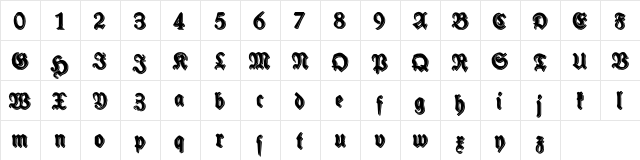
Schneidler Halb Fette Shadow Regular
Design Context for Schneidler Halb Fette Shadow Typeface
Schneidler Halb Fette Shadow brings ornamental detail and strong personality to headlines and identities, where visual impact matters more than quiet functionality.
Font Pairing: Pair with a clean neutral sans-serif for body copy to let Schneidler Halb Fette Shadow's character lead without overwhelming the composition.
Pro Tip: Use Schneidler Halb Fette Shadow exclusively at display sizes — it was designed to be seen, not read at length. Let a neutral companion handle body copy.